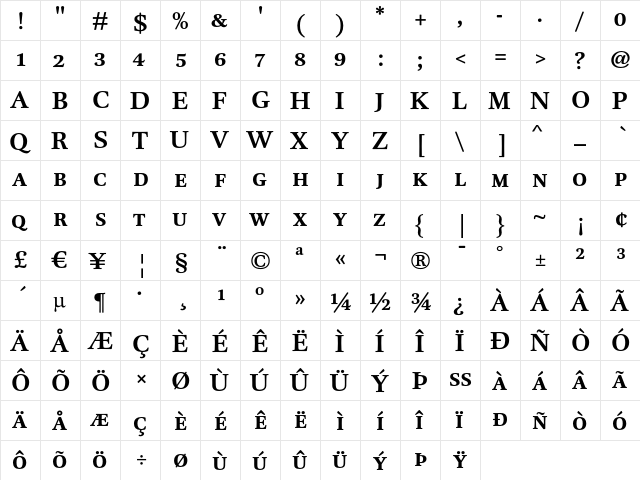
DTLUnicoT CapsBold Font Preview
DTLUnicoT CapsBold
Design Context for DTLUnicoT Typeface
DTLUnicoT offers clean, dependable letterforms without strong stylistic allegiance, making it a practical choice for designers who need flexibility. The heavy weight commands attention and anchors typographic hierarchies.